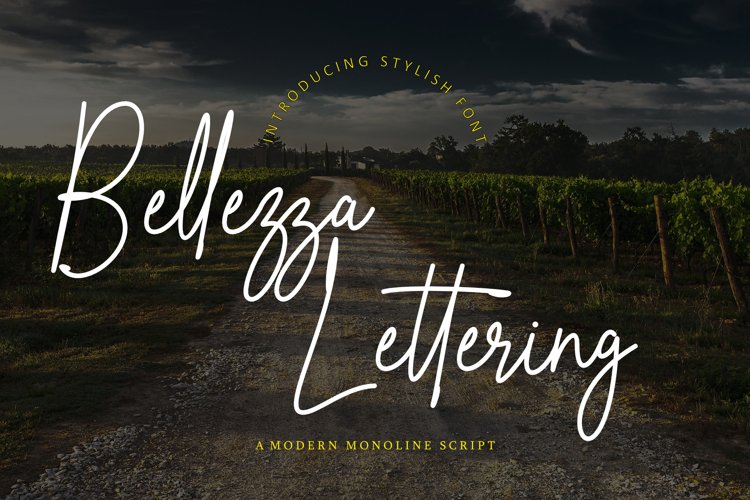
Bellezza Lettering Script a new modern script font with Signature style baseline. it looks lovely on wedding invitations, thank you cards, quotes, greeting cards, logos, business cards and more.
This font is made in a modern style with a very natural typeface, elegantly, very casual and suitable for your various design needs Perfect for logo, branding, tittle, social media posts, advertisements, product packaging, product designs, label, photography, watermark, special event, magazine, web design, etc.